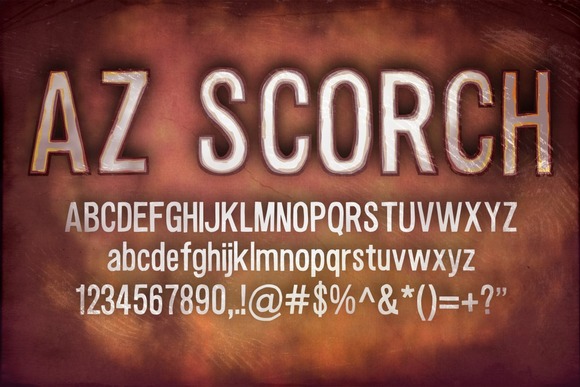
The Designer’s Delight: AZ Scorch Font
I’ll never forget the time I was working on a project for a client who wanted a modern, edgy look. I spent hours scouring the internet for the perfect font, only to come up empty-handed. That was until I stumbled upon the AZ Scorch Font. This easy-to-read sans serif font has been a game-changer for me, and I’m excited to share my experience with you.
So, what do I love about AZ Scorch Font? Here are a few things that make it stand out:
- ✨ **Clean and modern design**: The font’s sans serif design makes it perfect for projects that require a clean and modern look.
- ✅ **Easy to read**: The font’s clear and concise design makes it easy to read, even at small sizes.
- 💡 **Versatile**: AZ Scorch Font can be used for a variety of projects, from digital designs to print materials.
Of course, no font is perfect, and AZ Scorch Font has a few quirks:
- 🤔 **Limited stylistic alternates**: While the font has some great stylistic alternates, it’s not as extensive as some other fonts.
- ⚠️ **Not suitable for body text**: While the font is easy to read, it’s not the best choice for large blocks of body text.
The Designer Behind AZ Scorch Font
AZ Scorch Font was designed with the goal of creating a clean and modern sans serif font that’s easy to read. The designer, Alex Z., drew inspiration from a variety of sources, including urban landscapes and modern architecture. The result is a font that’s both stylish and functional.
| Q: What type of projects is AZ Scorch Font best suited for? | A: AZ Scorch Font is best suited for projects that require a modern and clean design, such as digital designs, print materials, and branding. |
| Q: Is AZ Scorch Font easy to read? | A: Yes, AZ Scorch Font is designed to be easy to read, even at small sizes. |